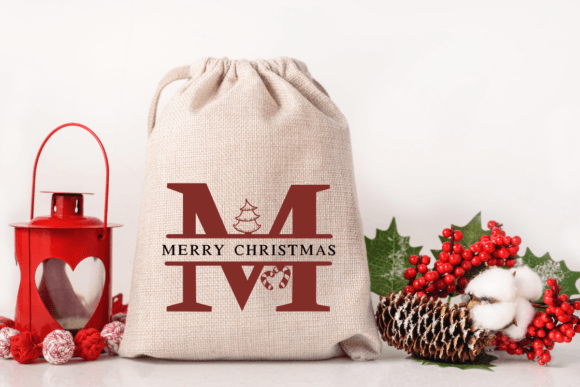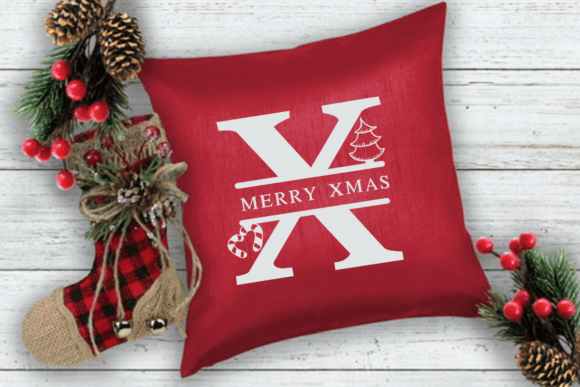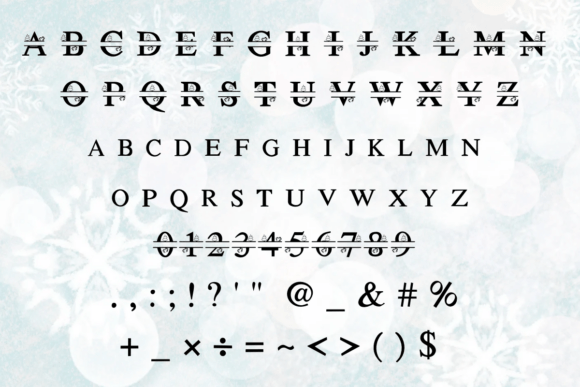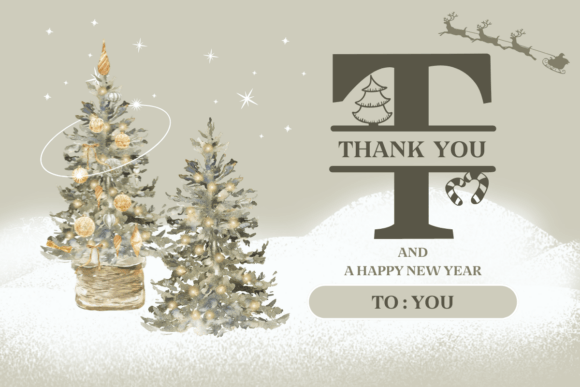
The Magic of Christmas Monogram Font: A Designer’s Delight
I’ll never forget the time I was working on a Christmas project for a client, and I just couldn’t find the right font to match the festive vibe. The client wanted something that screamed “Merry Christmas” without being too over-the-top. That’s when I stumbled upon the Christmas Monogram Font, and it instantly became my go-to for the project. In this article, I’ll share my experience with this beautiful font, its features, and how you can use it to elevate your designs.
An Honest Review of Christmas Monogram Font
So, what makes Christmas Monogram Font so special? Let’s dive into the good stuff and a few quirks I’ve noticed.
• ✨ Festive and playful design that’s perfect for Christmas projects
• ✅ Highly versatile and can be used for various design purposes, from greeting cards to social media posts
• 🎉 Easy to read and understand, making it perfect for body text
• 💻 Works well with both digital and print designs
While Christmas Monogram Font is amazing, there are a few things to keep in mind:
• 🤔 The font might not be the best choice for very formal or professional designs, as it has a distinctly festive feel
• ⚠️ Some characters might not work well in very small sizes, so it’s best to use it at larger sizes for optimal results
The Story Behind Christmas Monogram Font
Christmas Monogram Font was designed with the holiday season in mind. The designer wanted to create a font that would capture the magic and wonder of Christmas, while also being versatile enough for various design purposes. The result is a beautiful, festive font that’s perfect for adding a touch of holiday cheer to your designs.
Font Name Christmas Monogram Font
Author Bee piyanuch
Q: Is Christmas Monogram Font suitable for digital designs?
A: Yes, Christmas Monogram Font works well for digital designs, including social media posts, blogs, and websites.
Q: Can I use Christmas Monogram Font in print designs?
A: Absolutely! Christmas Monogram Font is suitable for print designs, including greeting cards, posters, and flyers.